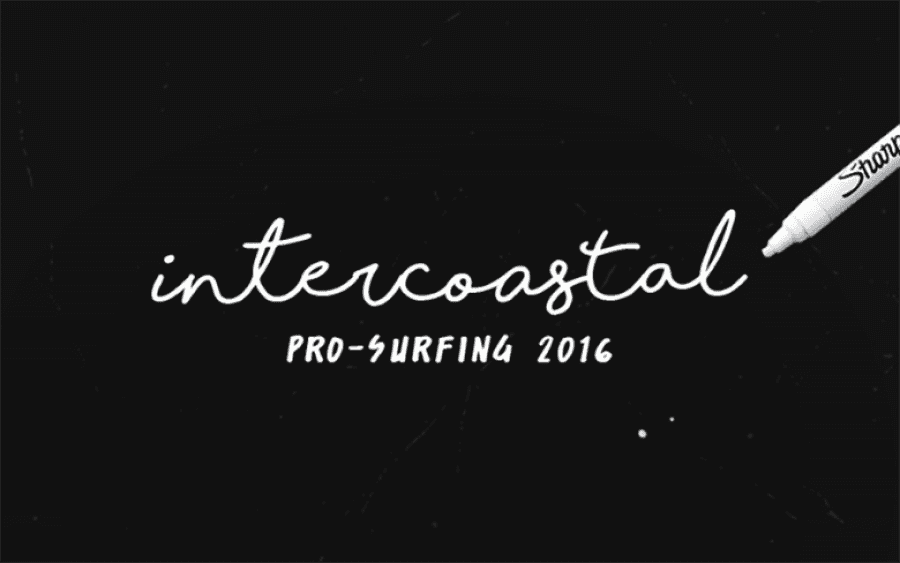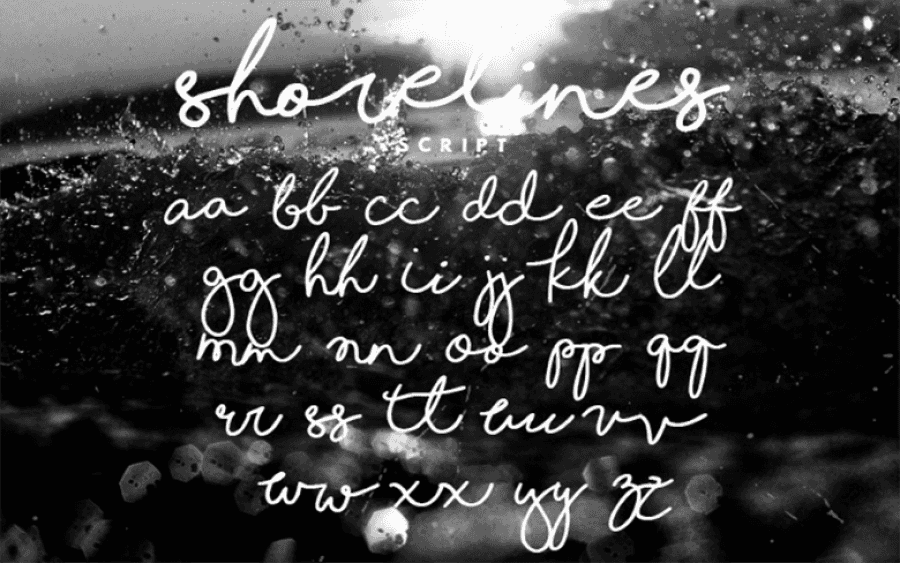
Shorelines Script is different from the other font in the same respect that it imitates feminine script but at the same time possess the power and invincibility of the king of the shores! Just what photographers need in search of a perfect text to add to their photographs or serious surfers in search for proper text to add to their surfing photos; Shorelines will be your handwriting font of choice due to its uneven heights and spacing.